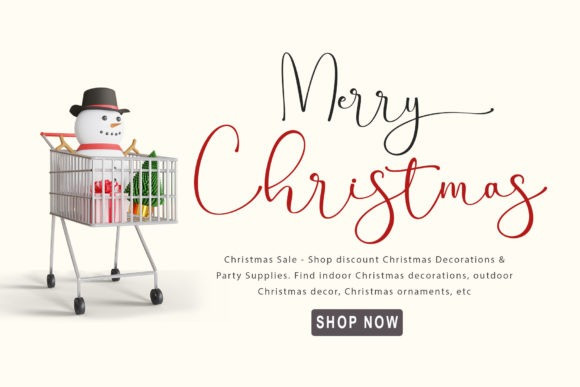
Enchant Font
Enchant Handwritten Font is a thin lettered and graceful script font. Fall for its ravishing style and use it to create gorgeous wedding invitations, beautiful stationary art, eye-catching social media posts, and much more!